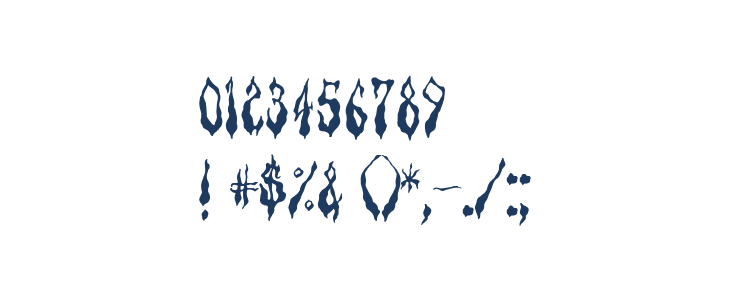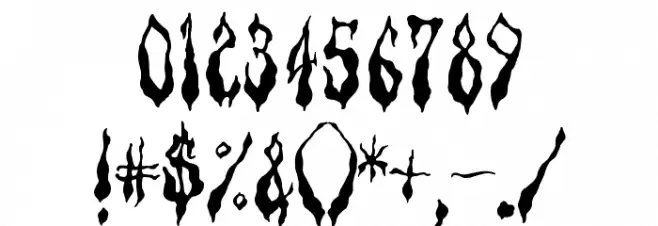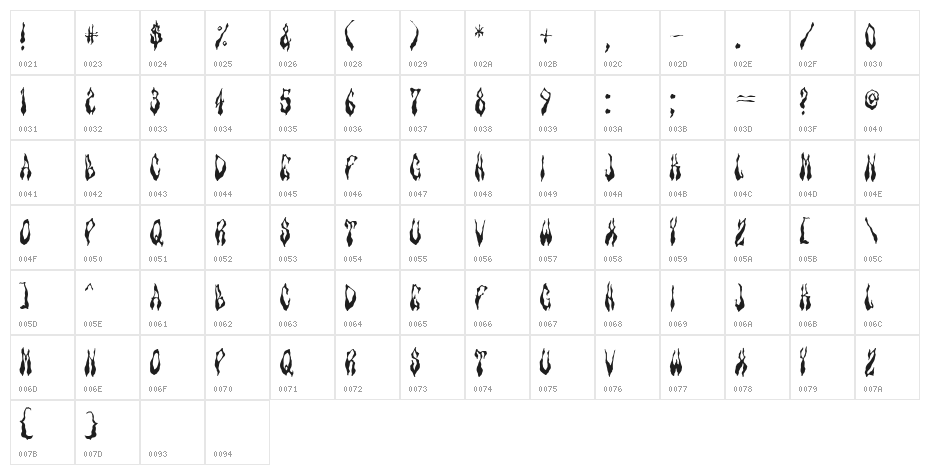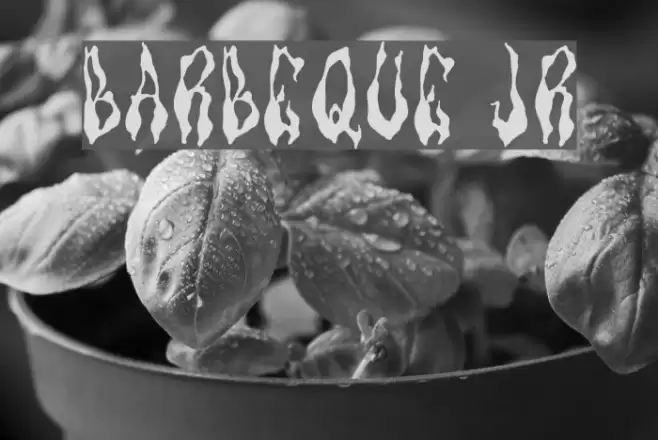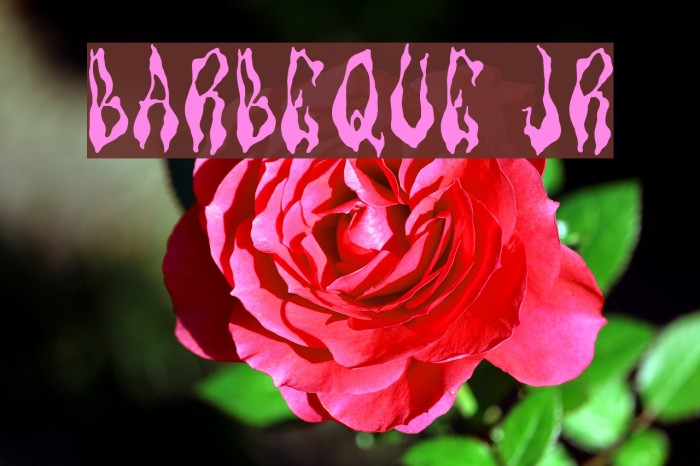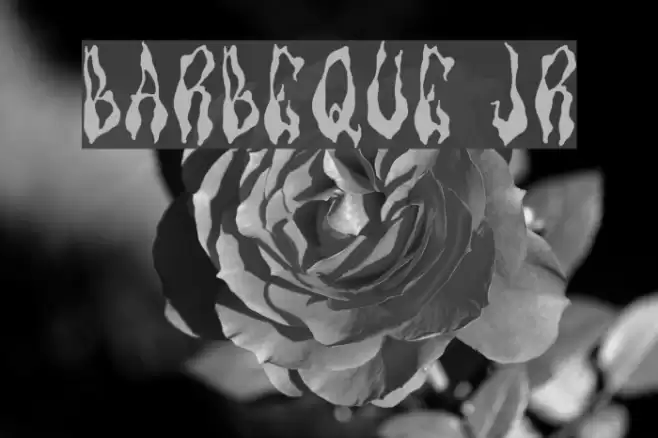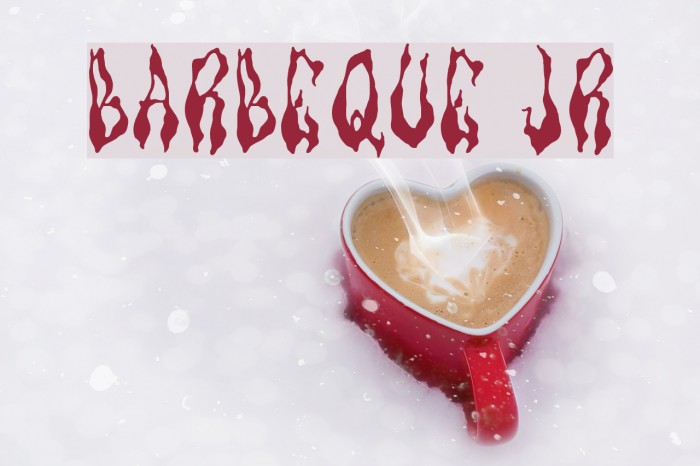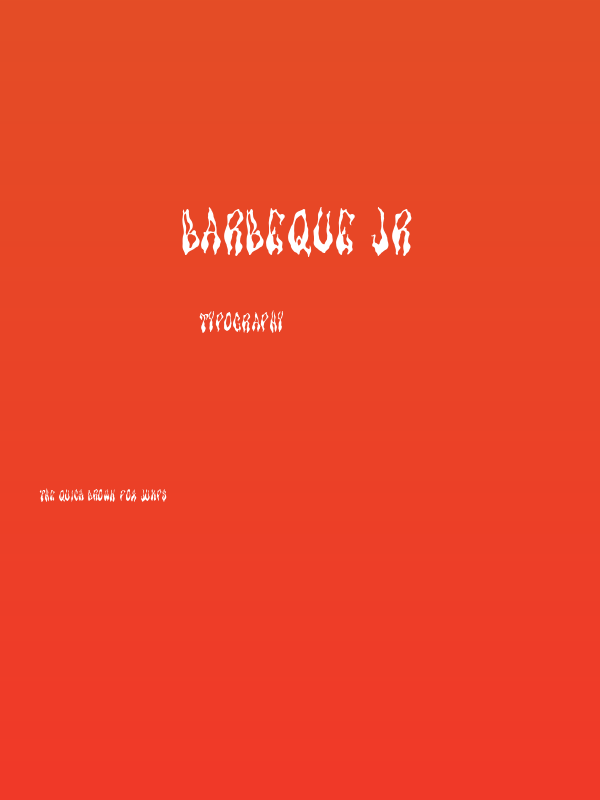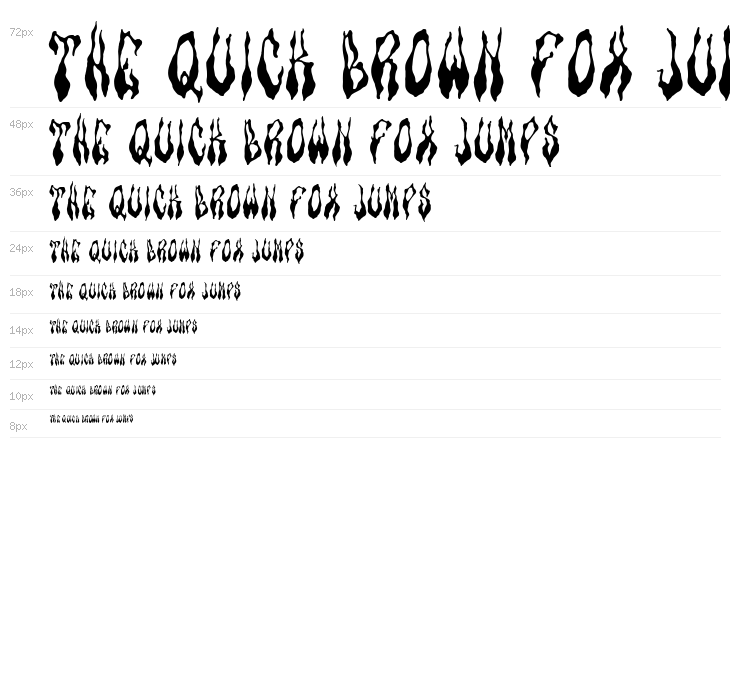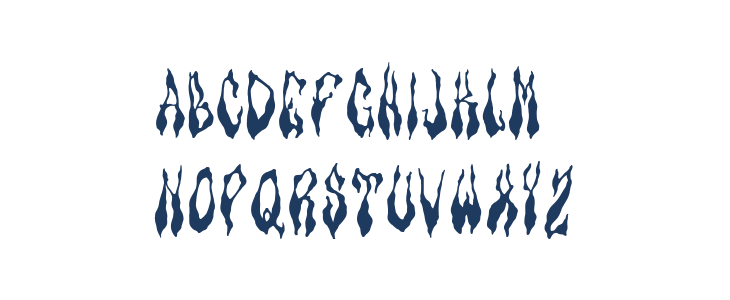
Barbeque Jr Font
Barbeque Jr Description
This font features a unique, flame-like design that gives each character a dynamic and fiery appearance. The letters are bold and irregular, with jagged edges that create a sense of movement and intensity. The uppercase and lowercase letters maintain a consistent style, while the numbers and special characters follow the same energetic theme. This font is highly decorative, making it ideal for eye-catching designs that require a strong visual impact. Its distinct style is perfect for projects that aim to convey excitement, energy, or a sense of adventure.
| Proposed Projects | Ideal for posters, event flyers, video game titles, and branding that requires a bold, energetic look. |